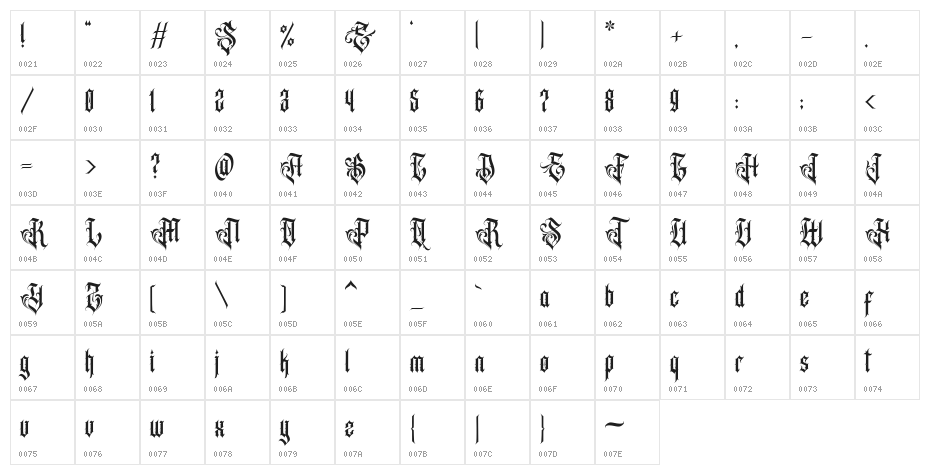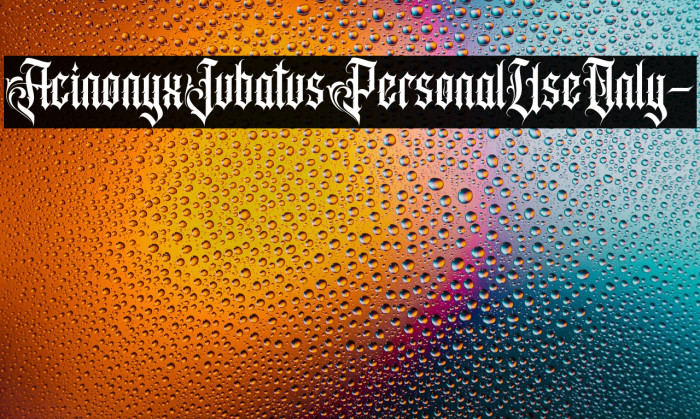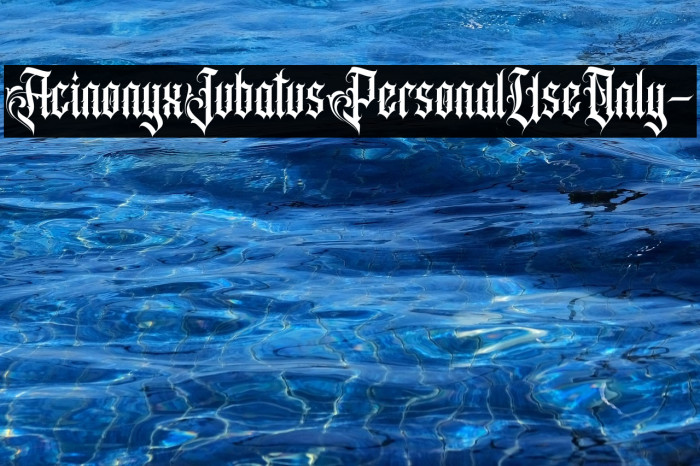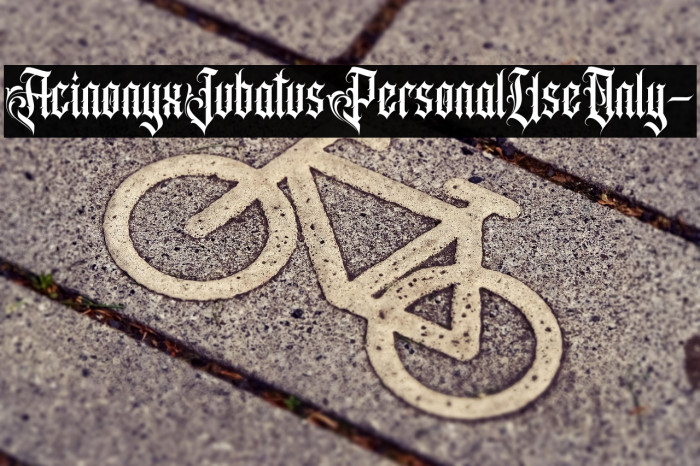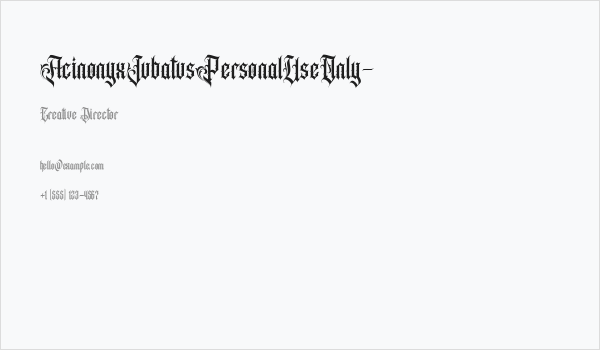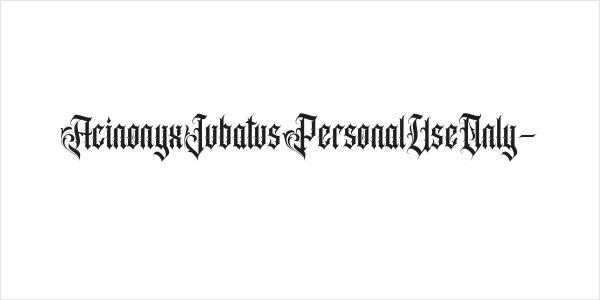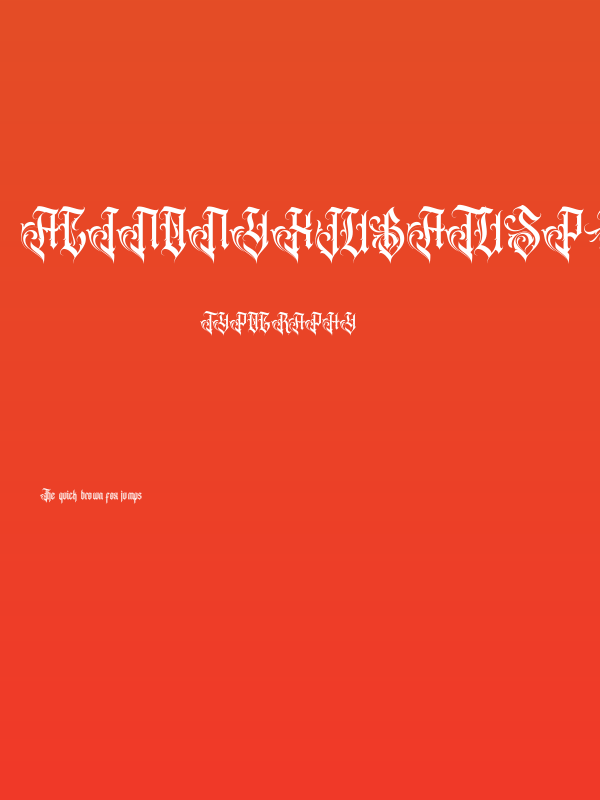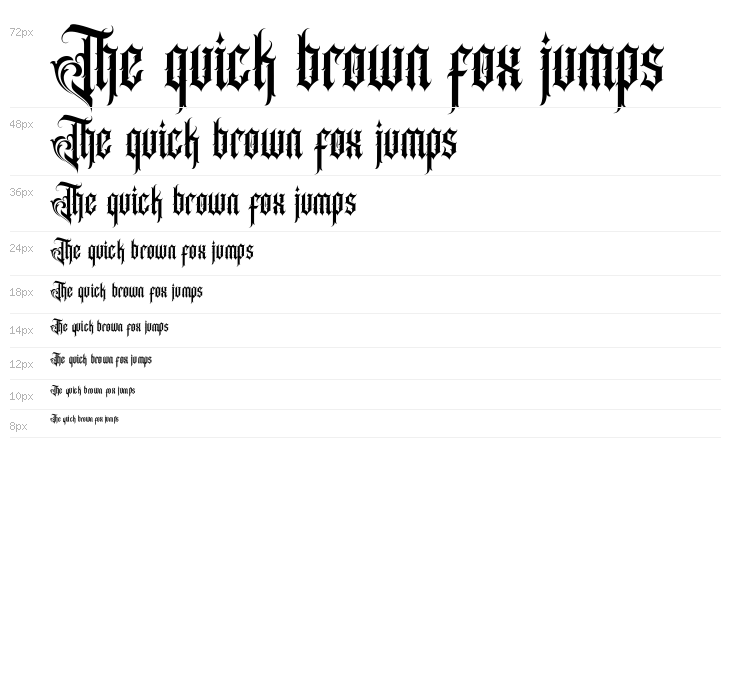
AcinonyxJubatusPersonalUseOnly- Font
AcinonyxJubatusPersonalUseOnly- Description
This font exhibits a striking blackletter style, characterized by its intricate and ornate design. The letters are bold and angular, with sharp edges and elaborate flourishes that give it a distinctly medieval appearance. The uppercase characters are particularly elaborate, featuring additional decorative elements that enhance their visual impact. The lowercase letters maintain the same level of detail, ensuring consistency throughout the typeface. Numbers and special characters are designed to match the overall aesthetic, making this font suitable for projects that require a dramatic and historical feel.
| Proposed Projects | Ideal for historical documents, gothic-themed designs, book covers, and event posters. |